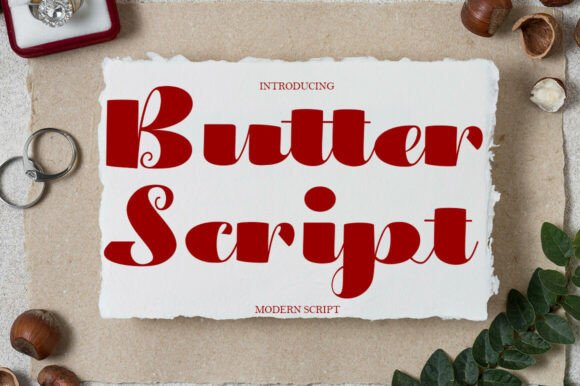
Butter Script Font: Elevate Your Designs with a Touch of Elegance
In the world of typography, script fonts hold a special place for their elegance, charm, and versatility. Among the myriad of script fonts available, the Butter Script Font stands out for its unique blend of modernity and classic calligraphy. This article delves into the characteristics, uses, and benefits of the Butter Script Font, exploring how it can elevate your designs, particularly for special occasions and professional branding.
What is Butter Script Font?
Butter Script is a contemporary script calligraphy font that boasts an irregular baseline, setting it apart from more traditional script fonts. This distinctive feature gives it a trendy and feminine style, making it a perfect choice for designs that require a touch of elegance and sophistication. The font’s unique irregularities mimic the natural flow and imperfections of handwriting, adding a personal and intimate feel to any design.
Ideal Uses for Butter Script Font
The versatility of Butter Script Font makes it suitable for a wide range of design projects. Here are some popular applications:
- Wedding Invitations: The elegant and feminine style of Butter Script makes it a perfect fit for wedding invitations, adding a touch of romance and sophistication.
- Thank You Cards: Express gratitude with beautifully designed thank you cards that feature the charming Butter Script Font.
- Quotes and Greeting Cards: The font’s trendy and elegant appearance makes it ideal for quotes and greeting cards, allowing you to convey your message in style.
- Logos and Business Cards: For businesses looking to add a touch of elegance to their branding, Butter Script Font can be a great choice for logos and business cards.
Perfect for Ink or Watercolour Designs
One of the standout features of Butter Script Font is its compatibility with various mediums, particularly ink and watercolour designs. The font’s strokes and irregularities are beautifully complemented by the fluidity and blending capabilities of ink and watercolour, creating stunning visual pieces. Whether you’re a digital designer or an artist working with traditional mediums, Butter Script Font can enhance your work with its elegant and dynamic appearance.
Key Typographic Features
Butter Script Font comes with several typographic features that make it versatile and highly usable:
- Irregular Baseline: Gives the font a dynamic and hand-crafted feel.
- Trendy and Feminine Style: Makes it perfect for designs targeting a contemporary and elegant aesthetic.
- Compatibility: Works well with both digital and print designs, especially in ink and watercolour mediums.
Tips for Using Butter Script Font Effectively
To make the most out of Butter Script Font, consider the following tips:
- Pair with Simple Fonts: For optimal readability, pair Butter Script Font with simpler fonts for body text.
- Adjust Size and Colour: Experiment with different sizes and colours to make your design pop.
- Use in Moderation: While beautiful, using the font in moderation can prevent your design from looking overly elaborate or difficult to read.
Digital vs. Traditional: Using Butter Script Font Across Mediums
Butter Script Font’s adaptability is one of its strongest assets, allowing it to be used seamlessly across both digital and traditional mediums. Hereβs how to integrate it into your projects:
- Digital Designs: Perfect for social media graphics, digital invitations, and online branding.
- Traditional Mediums: Ideal for handcrafted cards, posters, and any project that involves ink, watercolour, or calligraphy.
Inspiration and Examples
For inspiration, look to designs that already utilize Butter Script Font. Examples include:
- Elegant wedding stationery sets
- Feminine fashion brand logos
- Personalized thank you cards
- Trendy quote posters
Butter Script Font is a versatile and elegant addition to any designer’s toolkit. Its unique blend of modern script calligraphy and irregular baseline offers a fresh take on traditional typography. Whether you’re designing wedding invitations, crafting business logos, or creating artistic quotes, Butter Script Font provides the perfect balance of trendiness and sophistication. By incorporating this beautiful font into your projects, you can add a touch of elegance and personal warmth that resonates with viewers.
Embrace Elegance with Butter Script Font
In the realm of script fonts, Butter Script stands out for its modern appeal and classic charm. As you explore the possibilities of this beautiful font, you’ll discover its potential to transform your designs into elegant and memorable pieces. So, embrace the elegance of Butter Script Font and let it guide your creative journey towards producing stunning visual content.